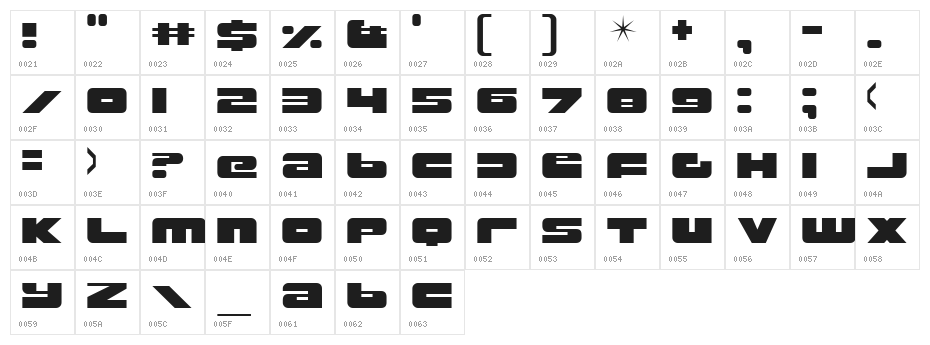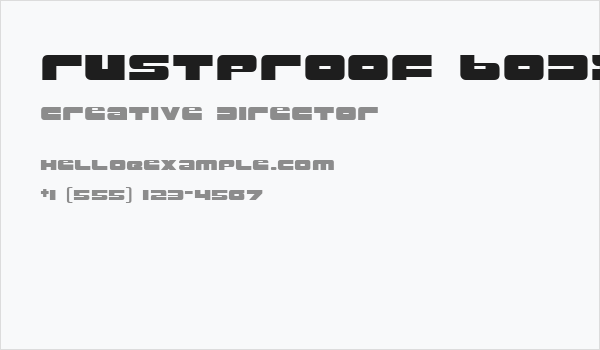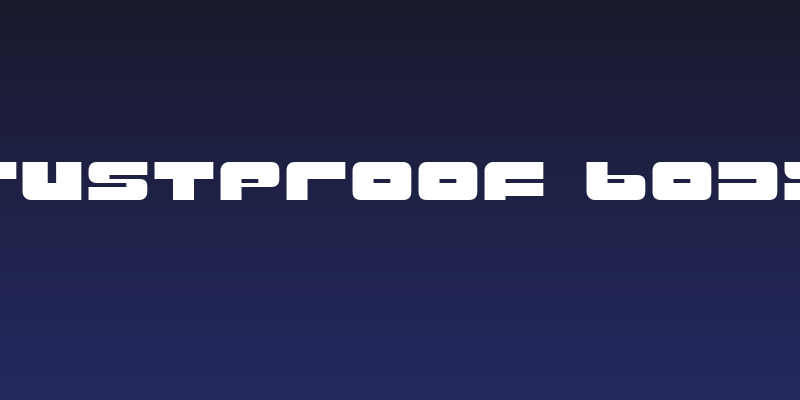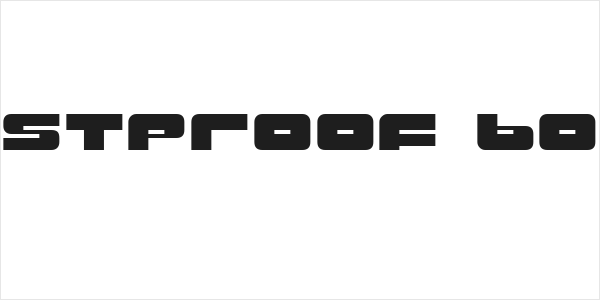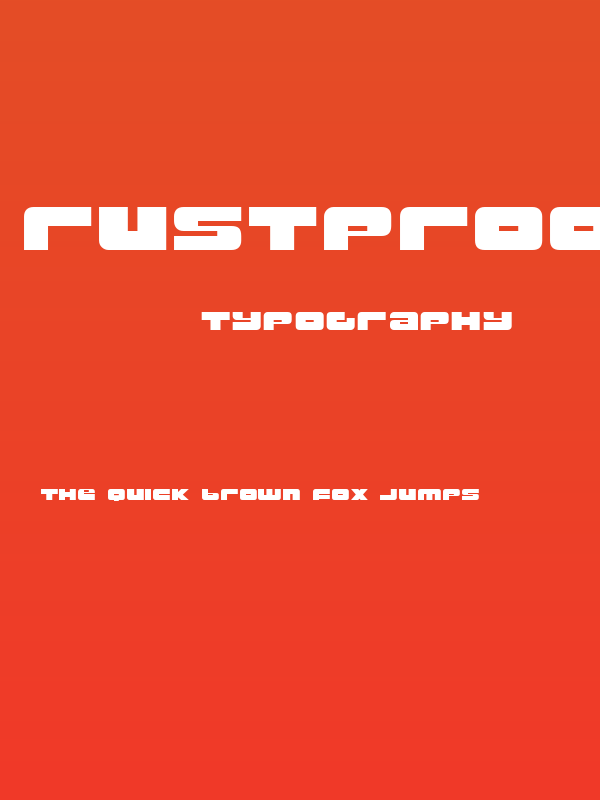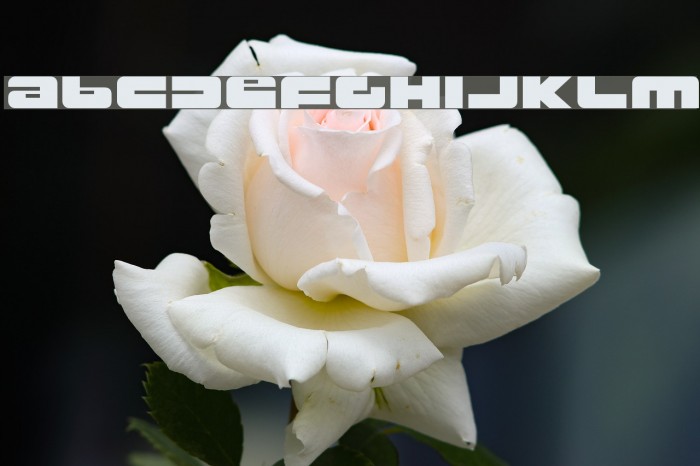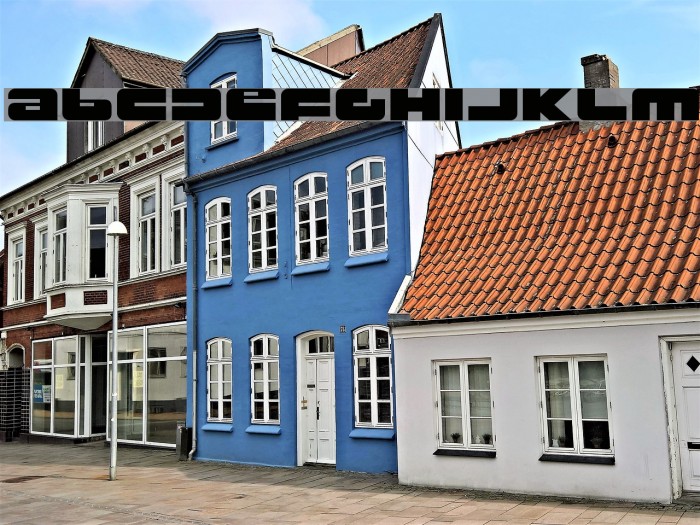
Rustproof Body Font
Rustproof Body Description
This font exhibits a bold and futuristic design, characterized by its geometric shapes and strong presence. The letters are constructed with thick, block-like forms that convey a sense of strength and modernity. The uppercase and lowercase characters maintain a consistent style, with rounded edges and a uniform width that enhances readability. The numerals and special characters follow the same design principles, ensuring a cohesive look across all elements. This font's unique style makes it stand out, offering a distinctive appearance that is both eye-catching and versatile.
| Use Case | Logos, Headlines, Posters |
| Proposed Projects | Ideal for technology branding, sci-fi movie posters, video game titles, and modern advertising campaigns. |